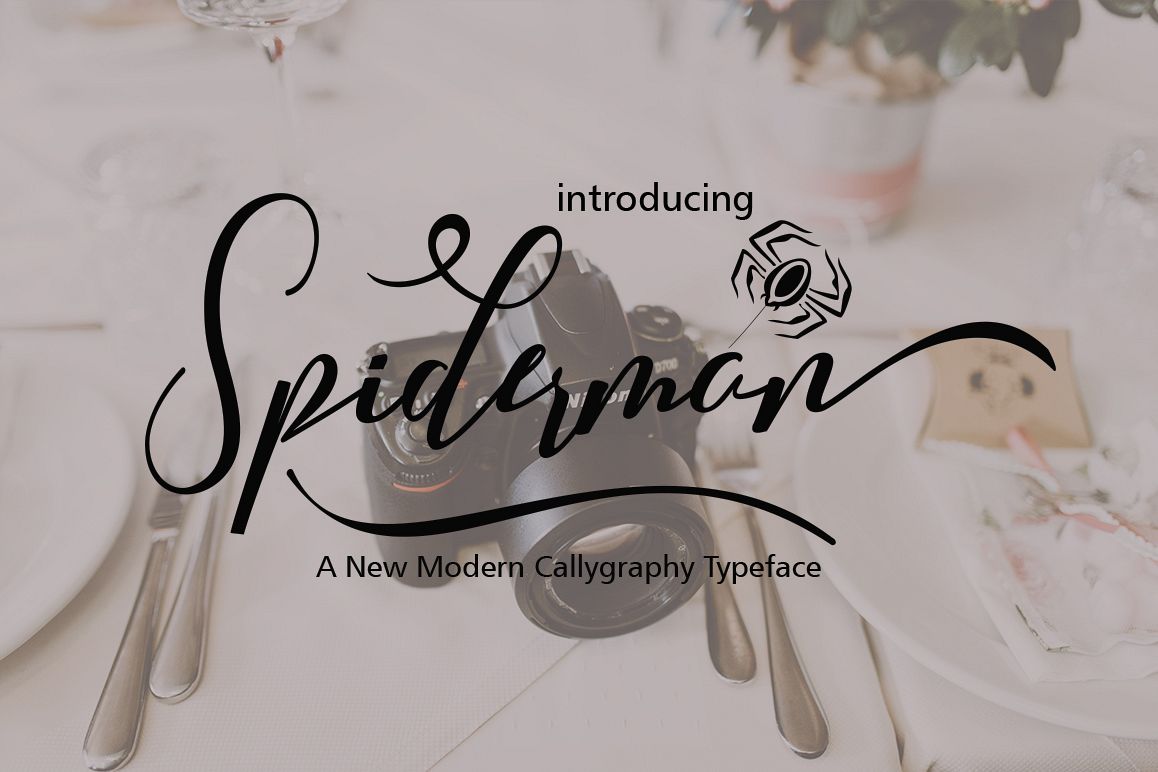
Spiderman
Spiderman-Regular
Spiderman Modern Calligraphy. This font was designed by handwriting, and it has a modern and unique forms of calligraphy, the writing style is very natural.